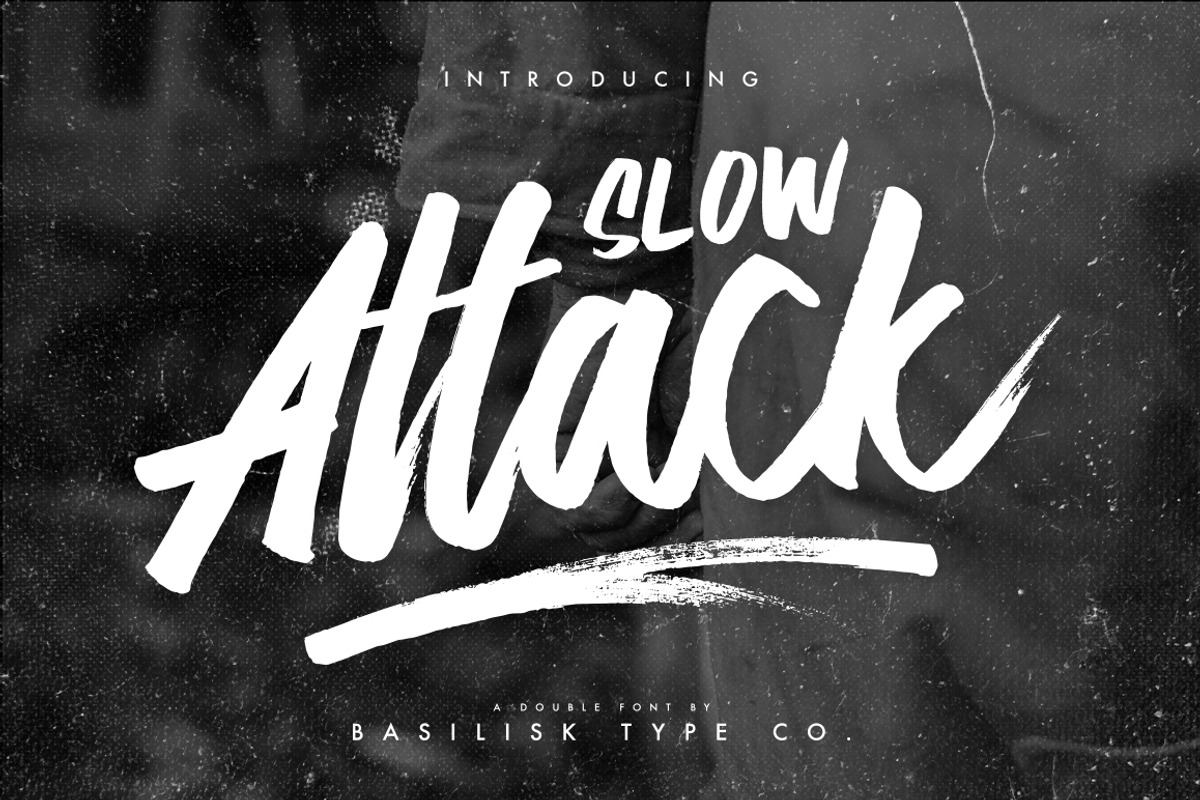
Bold, dynamic, and full of contrast, Slow Attack - Double Fonts Free Download is a unique font duo that pairs two distinct styles for maximum impact. Whether you’re working on logos, branding, posters, or social media graphics, this versatile font pair allows you to experiment with layering, creating strong typographic compositions that stand out.
The combination of two complementary yet contrasting fonts—one bold and the other lighter and more refined—gives you endless possibilities for creating dynamic layouts. Slow Attack’s dramatic style and modern appeal make it perfect for attention-grabbing headlines and creative design projects.